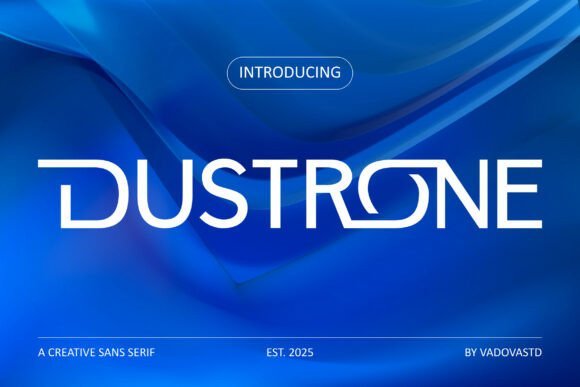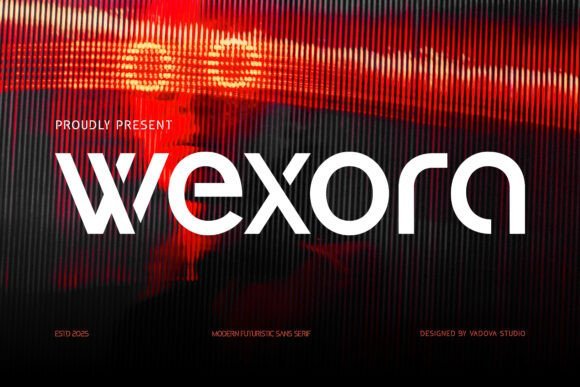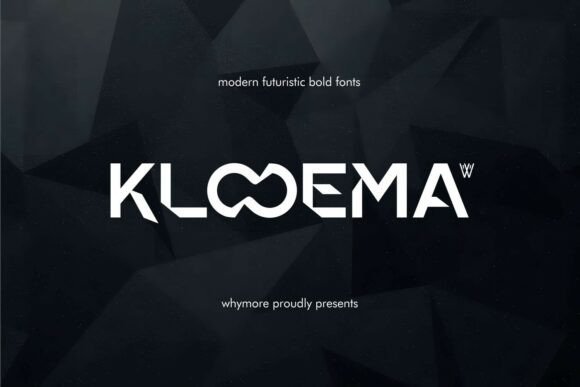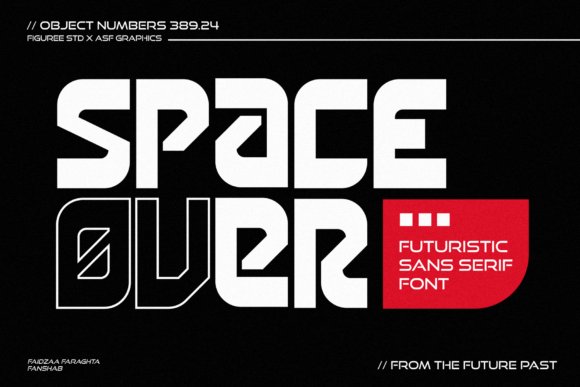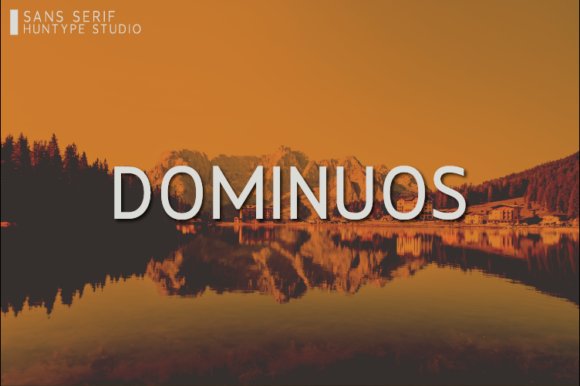
45 Best Futuristic Sans Serif Fonts for Cutting-Edge Digital Projects in 2026
As we move deeper into 2026, the demand for clean, tech-inspired aesthetics is reaching an all-time high. Designers are constantly on the hunt for futuristic sans serif fonts that can anchor a brand’s identity in a world dominated by automation and virtual reality. Whether you are working on a sci-fi gaming interface or a minimalist mobile app, having the right geometric and neo-grotesque styles in your toolkit is essential. This curated list explores 45 top-tier typefaces that blend readability with an avant-garde edge, ensuring your layouts stay ahead of the curve.
1. Square Space Font
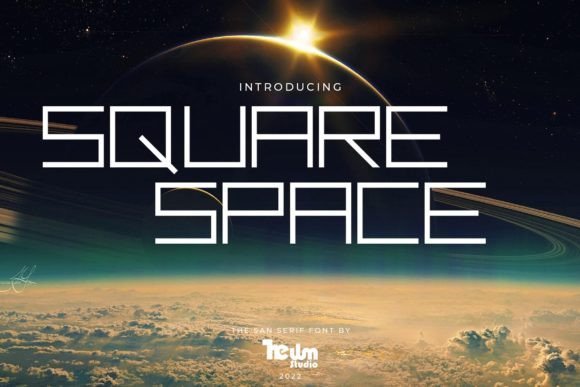
Square Space Font stands as a pinnacle of digital-age aesthetics, drawing deep inspiration from the modular circuitry and clean lines of modern hardware. This typeface excels in environments where innovation is the core message, offering a geometric precision that feels both grounded and ahead of its time. It is one of those futuristic sans serif fonts that doesn’t just sit on a page; it defines the space around it with a distinct Sci-Fi energy and a nod to advanced computing architectures.
Designers will find this font particularly effective for high-stakes branding in the fintech and aerospace sectors, where reliability and cutting-edge technology must coexist. Its sharp angles and balanced weight make it a prime candidate for user interface elements in mobile applications or as the primary logotype for a disruptive tech startup. When used in large-scale prints or digital banners, its innovative character provides an instant visual shortcut to a world of next-gen possibilities.
2. Samara Font
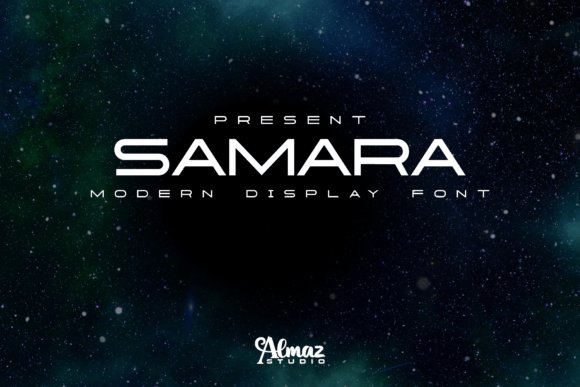
Samara Font is an exploration of efficiency and aerodynamic form, specifically engineered to mimic the pressurized construction of interstellar vessels. Unlike typical techno typefaces that can feel overly bulky, Samara features an ultra-compact structure that prioritizes verticality and spatial optimization. This makes it an essential tool for editors looking for futuristic sans serif fonts that can handle dense headlines without sacrificing the sleek, ultramodern look required for contemporary tech journals or space-age concept art.
The subtle curves on its square body provide a human touch to an otherwise rigid, industrial silhouette, striking a perfect balance between pop culture nostalgia and authentic engineering vibes. It is particularly well-suited for mobile-first web design where horizontal real estate is limited, yet a strong, authoritative presence is needed. Whether you are crafting titles for a science fiction epic or designing a high-density dashboard for a logistics firm, Samara delivers a sense of precision and forward momentum.
3. Goitted Font
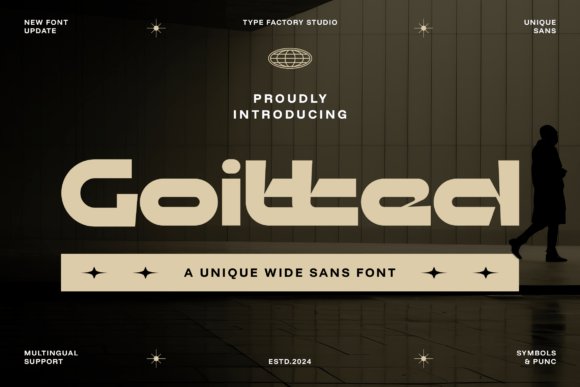
Goitted Font challenges the traditional boundaries of typography with its expansive, wide-set proportions and strong horizontal emphasis. This typeface is built upon a rigid geometric framework that exudes stability and high-velocity motion, making it a standout choice among futuristic sans serif fonts. Its extended letterforms and sharp detailing are designed to capture the eye and hold it, projecting a visual tone that is synonymous with luxury automotive branding and cinematic scale.
Beyond its striking appearance in headlines, Goitted includes a comprehensive set of ligatures and symbols that allow for complex, customized branding systems. It is the ideal partner for signage and packaging projects that require an impactful, wide presence, such as electric vehicle logos or architectural wayfinding. By utilizing its bold weight and forward-leaning stance, creators can evoke a sense of progress and premium quality that resonates in both high-tech industrial settings and minimalist contemporary galleries.
4. Abotyh Font
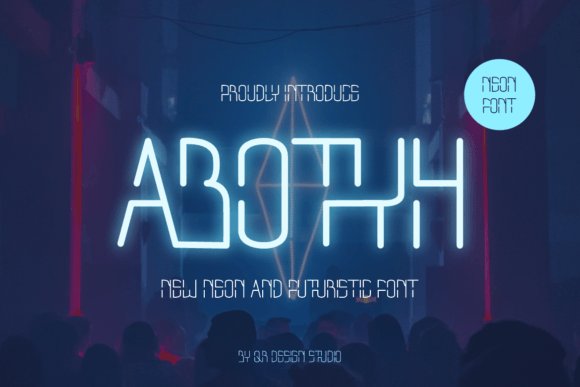
Abotyh Font represents the cutting edge of contemporary typography, offering a clean and streamlined aesthetic that fits perfectly within the futuristic sans serif fonts category. Its architecture is built on a balance of sharp precision and open counters, making it an ideal choice for digital interfaces or high-tech editorial layouts where readability and a sense of forward-thinking innovation are paramount. Designers will find its weight distribution particularly effective for creating visual hierarchies that command attention without overwhelming the viewer.
Beyond its aesthetic appeal, this typeface serves as a versatile workhorse for branding projects in the aerospace, biotechnology, or software development sectors. Its neutral yet distinct character allows it to adapt across various mediums, from large-scale outdoor signage to mobile app icons. By integrating Abotyh into your toolkit, you gain a reliable asset for projects that require a sophisticated, ultramodern look that feels grounded in the present yet prepared for the future.
5. Inno Font
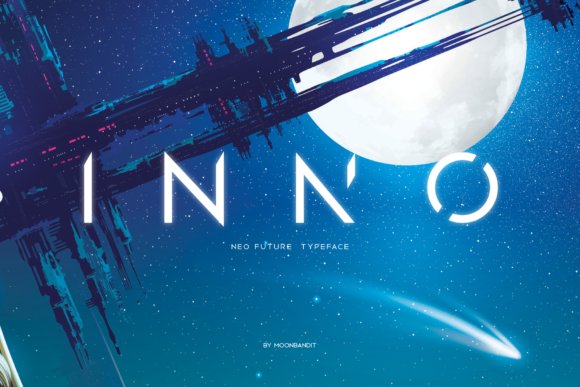
Inno Font breaks the mold of traditional futuristic sans serif fonts by infusing a delicate sense of elegance into a high-tech framework. This typeface bridges the gap between cold digital efficiency and high-end luxury, making it an exceptional selection for lifestyle brands, boutique technology startups, or minimalist fashion labels. The subtle tapering and refined curves suggest a human touch within a structured digital world, providing a refreshing alternative to more aggressive sci-fi typefaces.
Selecting the right typography is a crucial step in defining the visual language of any forward-thinking project. With these 45 options, you have a versatile range of styles—from ultra-thin minimalists to bold, architectural weights—to ensure your work resonates with the high-tech trends of 2026. Experiment with different tracking and layering to fully capture that sleek, modern vibe that only the best tech-inspired typefaces can provide.